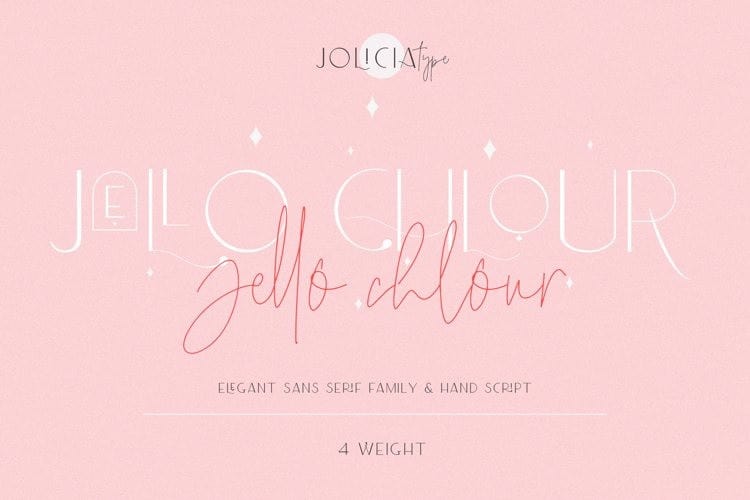
Jello Chlour Font
Jello Chlour Sans Serif Font is a versatile, modern, and elegant font. It has a unique style with standard ligatures, and supports multilingual languages. All gorgeous ligatures in these versions turn on automatically and you don’t need any special programs to use them. Create unique & beautiful logotype, use it as an elegant solution for your next magazine layout, or choose SaintMonica for any graphics that require a sleek look with an elegant flair.